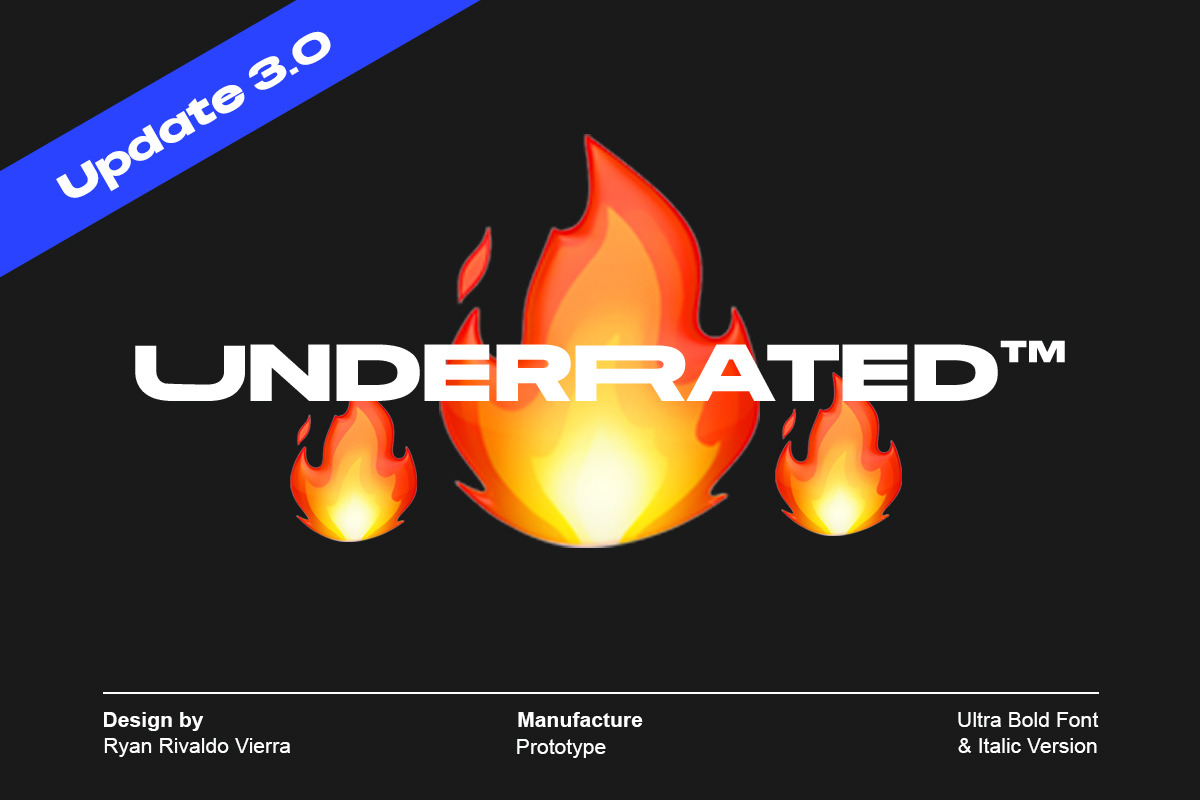
Underrated Font Update 3.0
Underrated Brand new font by ryan rivaldo vierra, ultra-bold geometric modern and clean typeface hype font dyslexia-friendly, perfect for any design
"update 3.0"
- Support iso Latin 1
- Fix Italic
- Stretch Upper cases alternative
- Fix italic kerning
- (a) Lower cases alternative fix
- (g) Lower cases fix